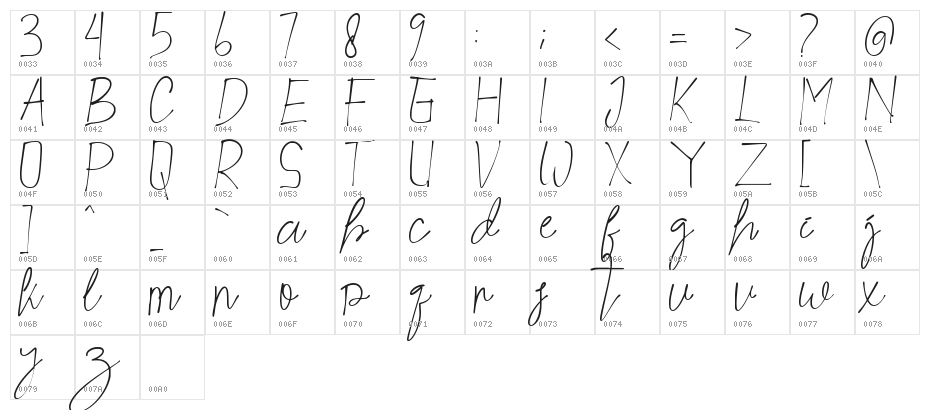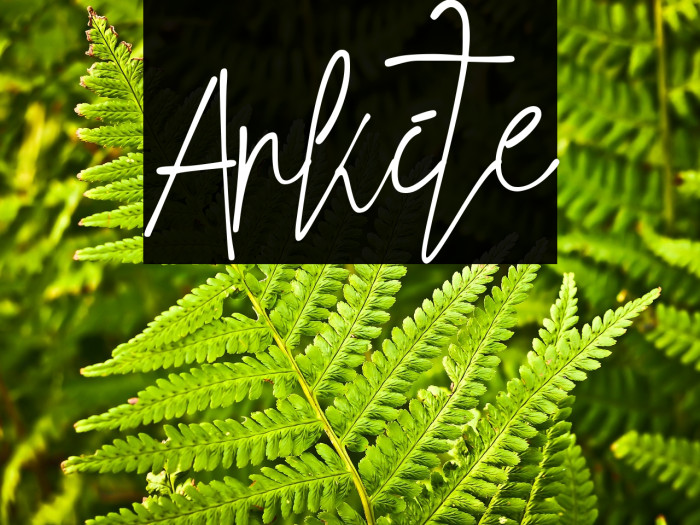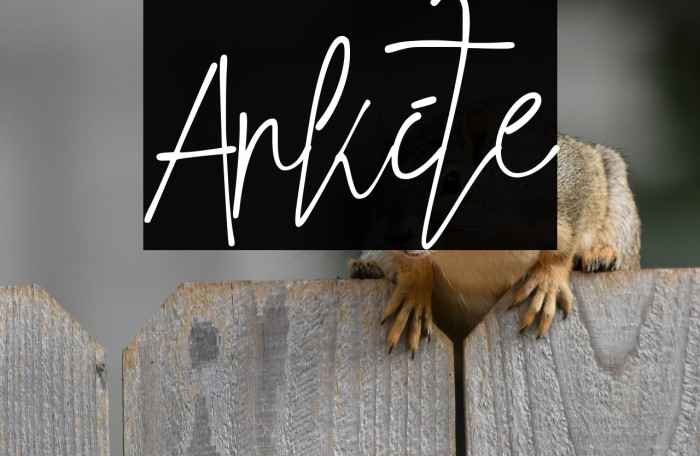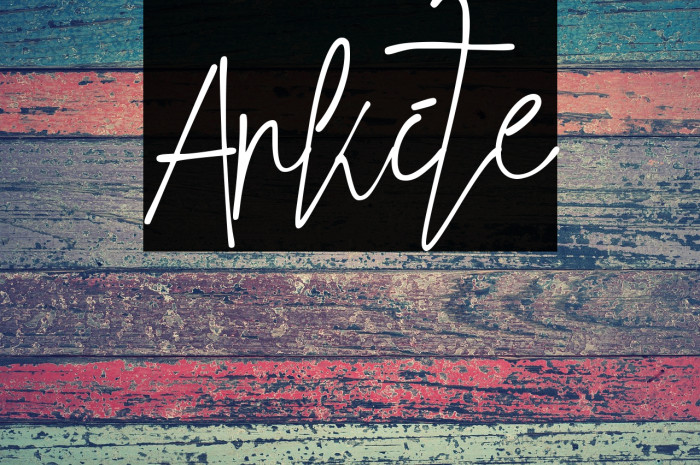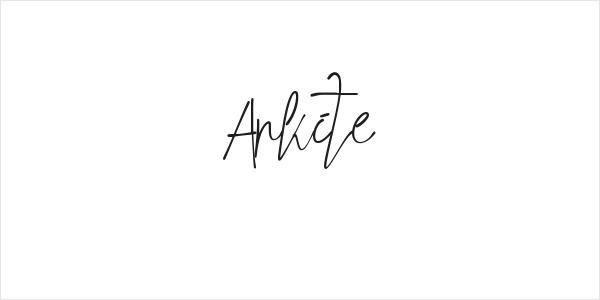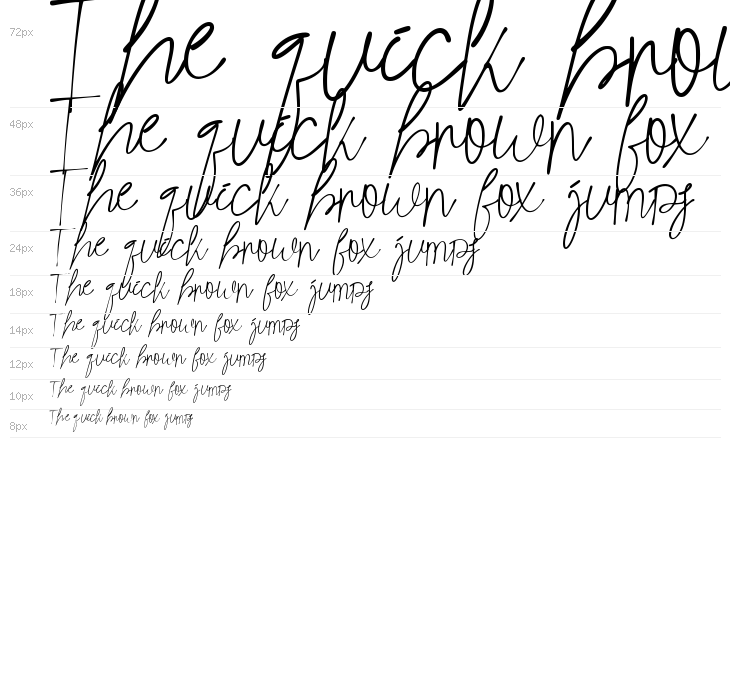
Arkite Font
Arkite Description
This font exhibits a unique blend of handwritten and modern styles, characterized by its slender, elongated letterforms and a casual, flowing script. The uppercase letters are tall and narrow, with a slight slant that adds a dynamic feel. The lowercase letters are more fluid, with a cursive influence that enhances the handwritten aesthetic. Numbers maintain the same slender quality, ensuring consistency across all characters. The special characters are designed to complement the overall style, maintaining the same thin strokes and elegant curves. This font's distinctiveness lies in its ability to convey a sense of personal touch while remaining clean and legible.
| Width | Condensed |
| Use Case | Logos, Invitations, Personal Branding |
| Proposed Projects | Ideal for personal branding, invitations, greeting cards, and creative projects that require a personal touch. |